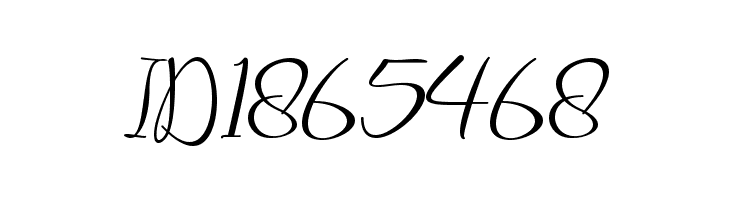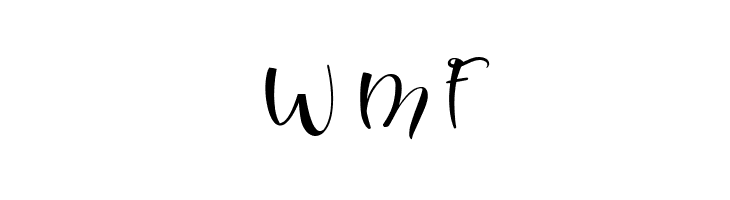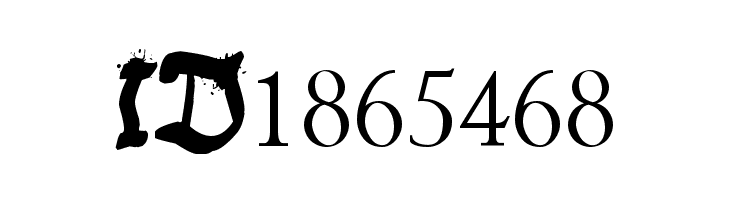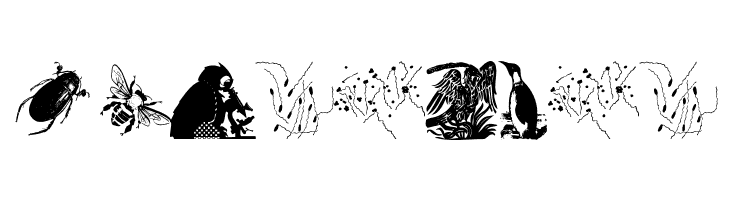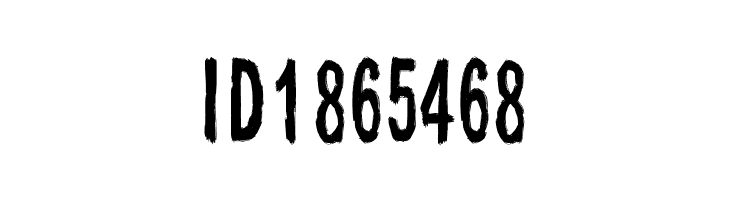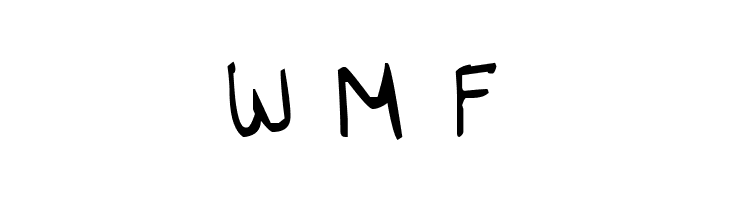
A playful, cursive font with dynamic strokes and elegant flow.
A playful, handwritten-style font with a casual and dynamic appearance.
A bold, hand-painted font with a rough, textured style.
A bold, hand-painted style font with textured, expressive strokes.
Animal-themed decorative font with unique illustrated glyphs.
A playful, hand-drawn font with a whimsical and casual style.
A graceful script font with flowing, cursive strokes and elegant loops.